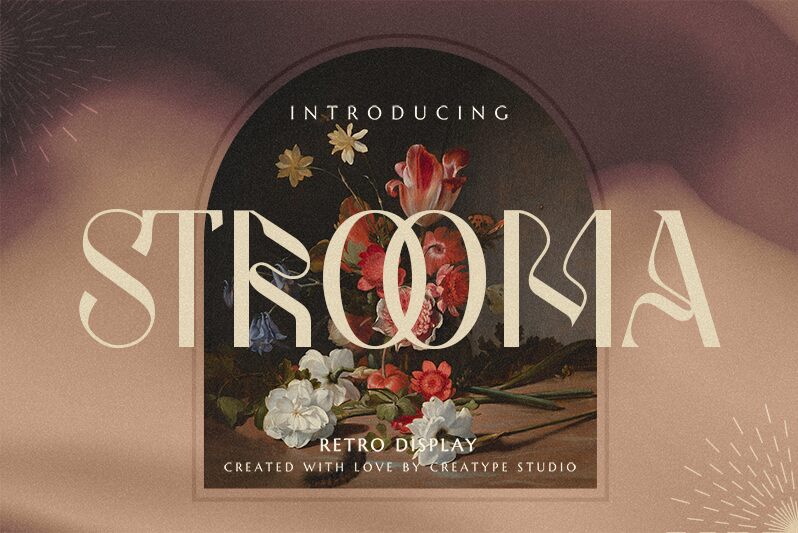
Strooma
Strooma font by Creatype Studio is a free display font whose retro letters are loaded with sophisticated style. Art Deco influences can be spotted throughout the geometric shapes that, although already distinct, become even more interesting with contrasting fills. Both elegant and modern, the font has an authentic appearance characterized by extravagant curves and modest straight strokes.
Integrate a few (or a lot) of Strooma’s iconic glyphs into your book covers, posters, movie/Hollywood titles, or artistic blogs about history or pop music. Each letter will also draw attention to navigation tabs in websites as well as mobile apps while maintaining easy readability in headers.